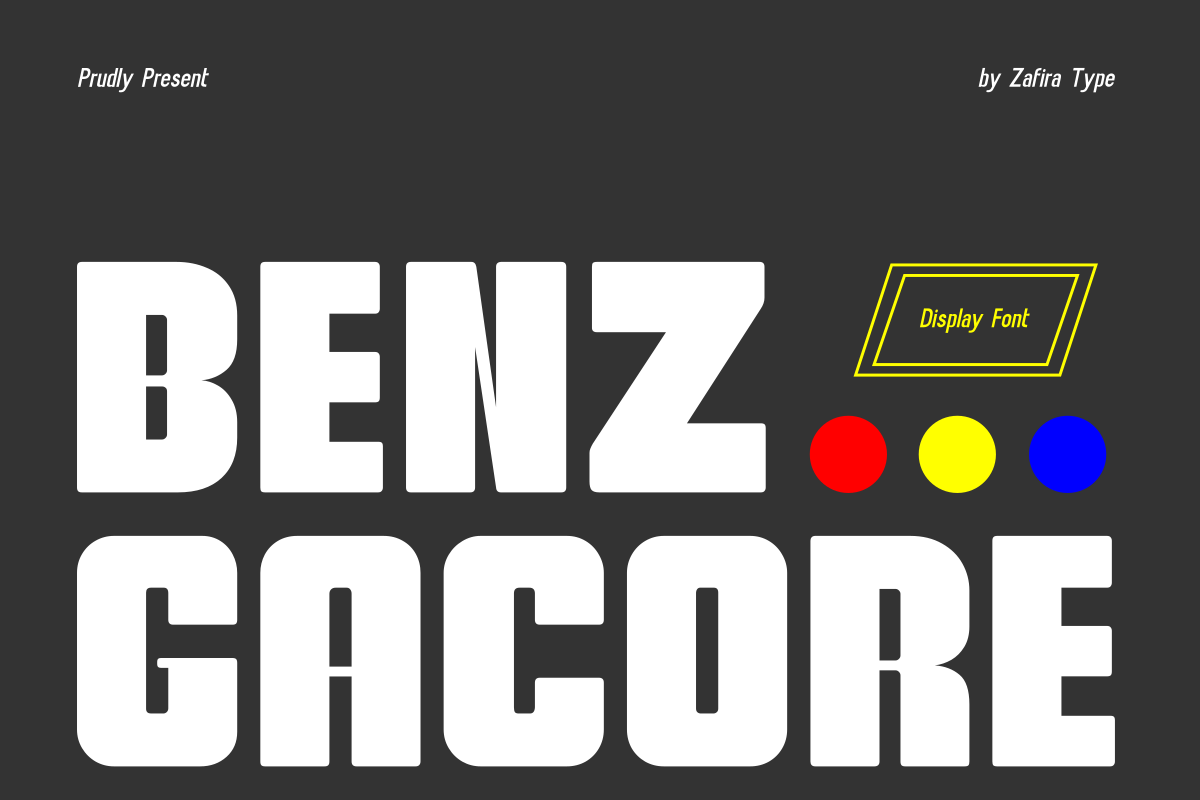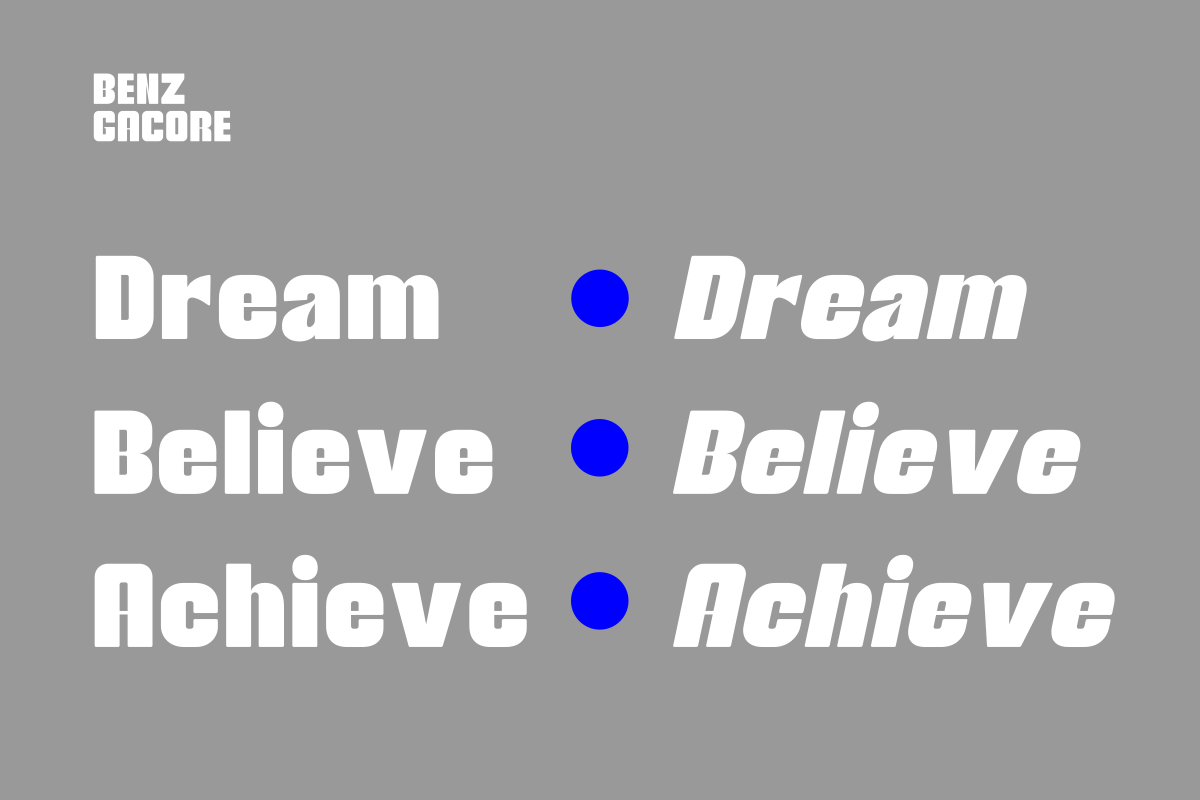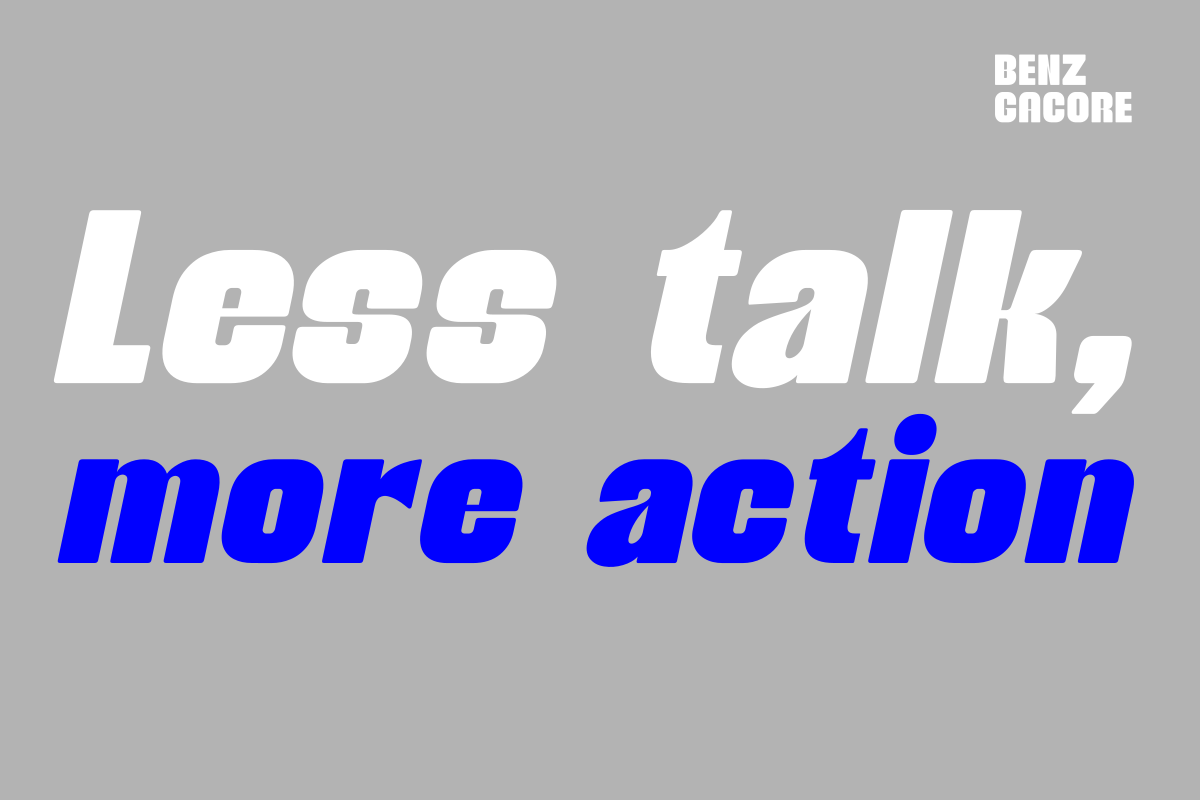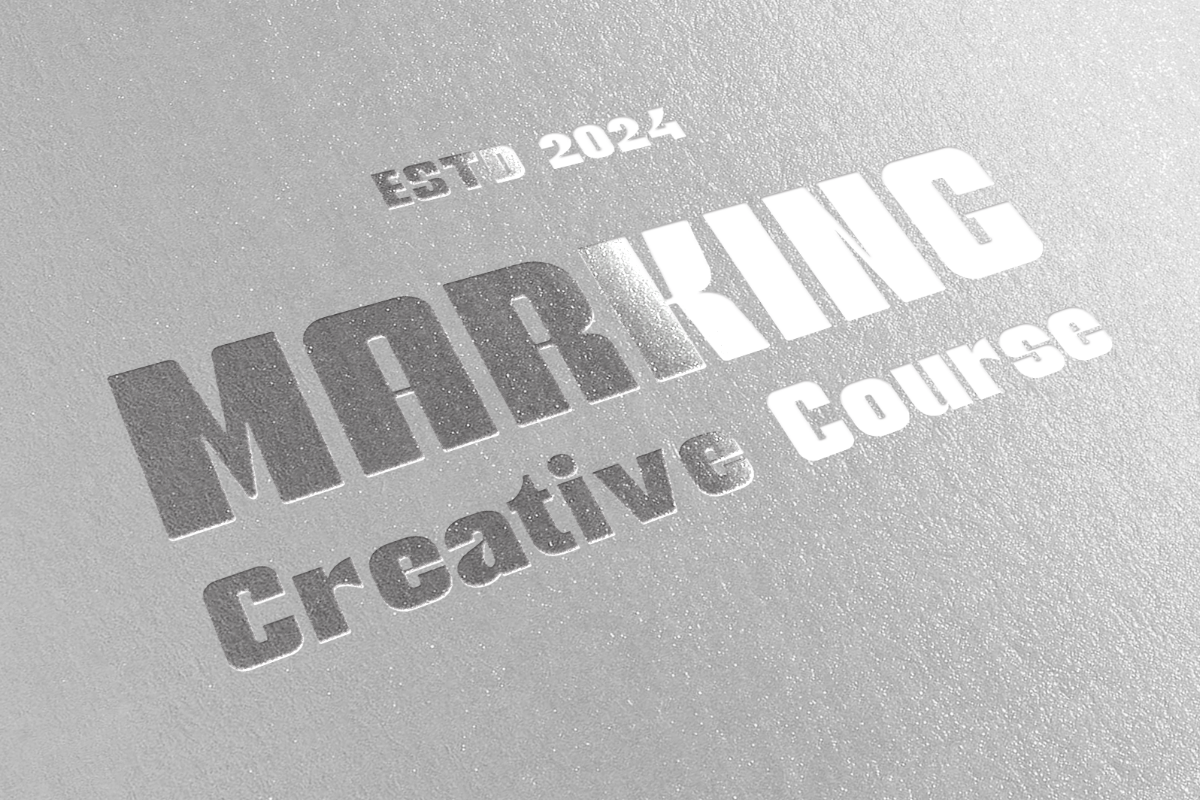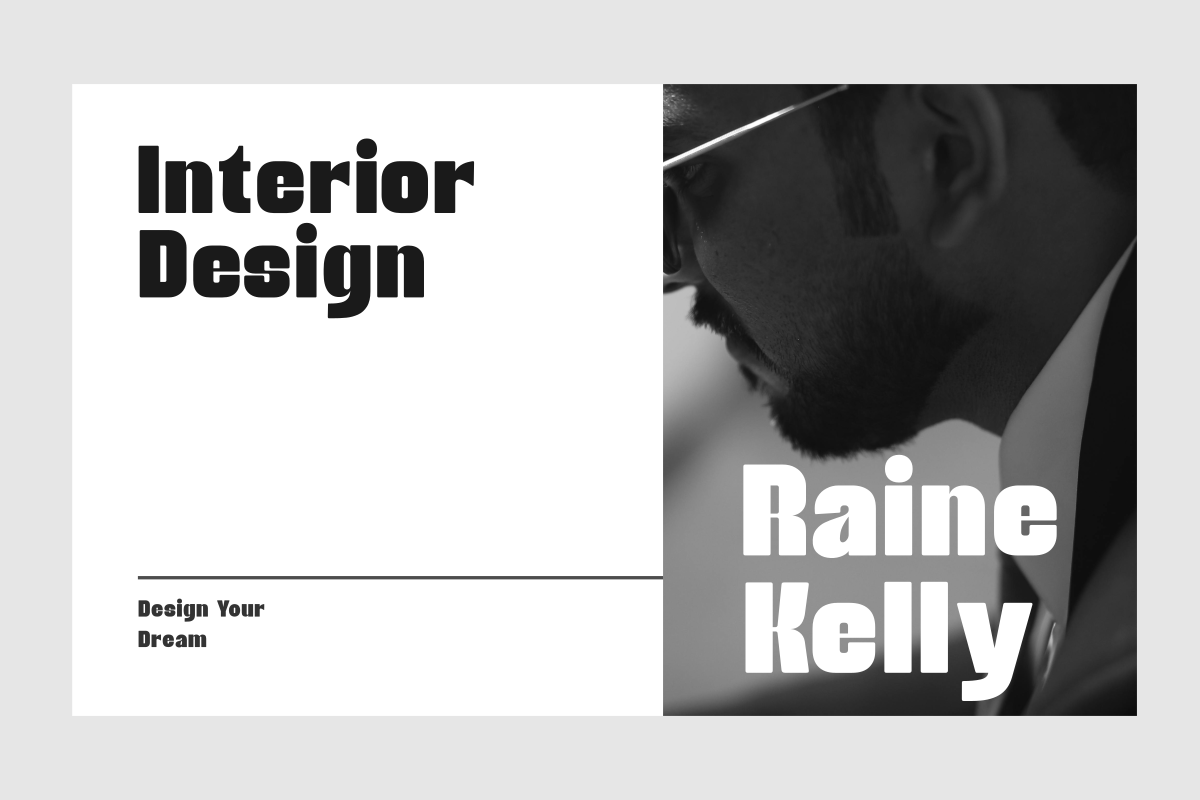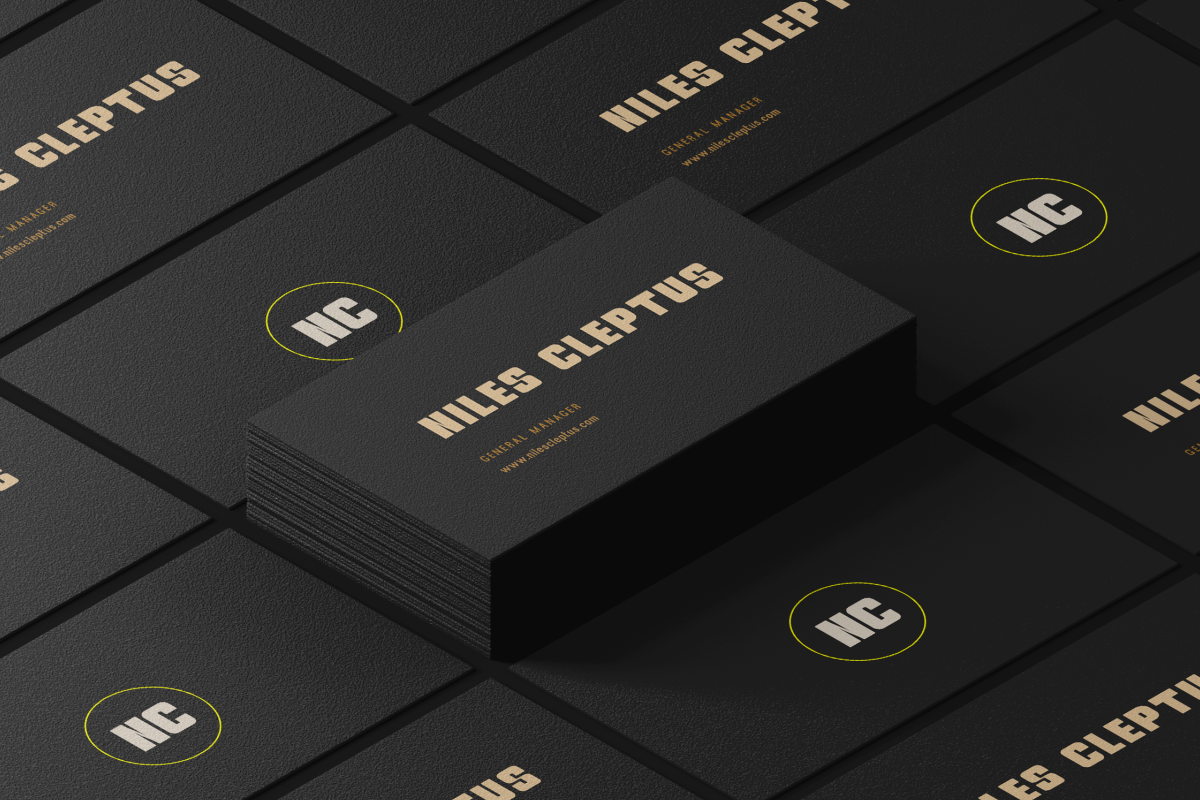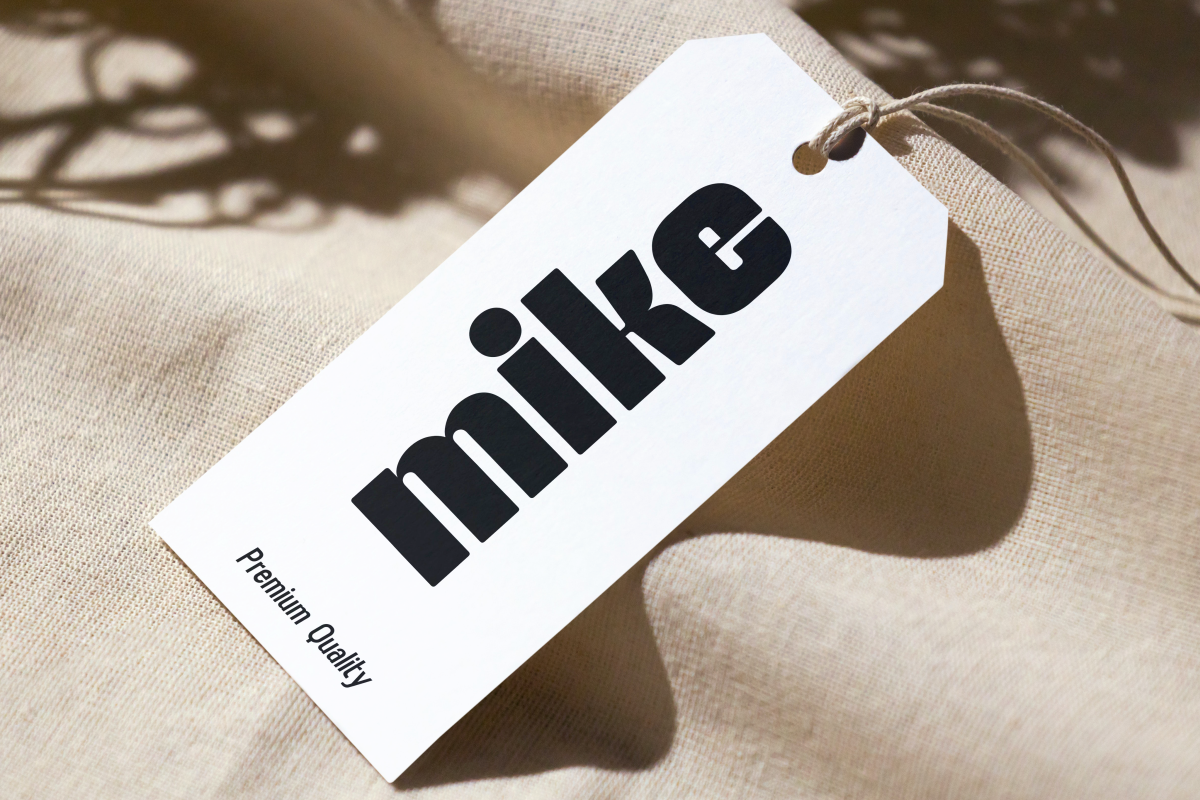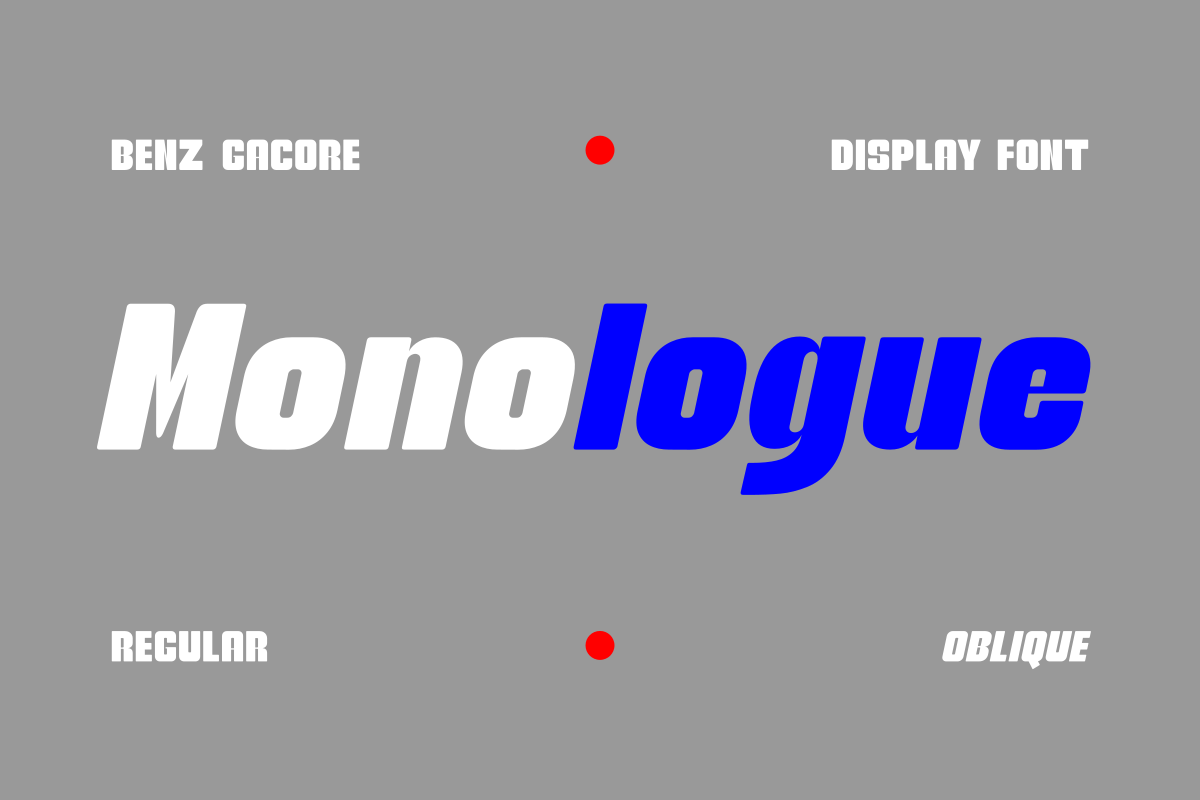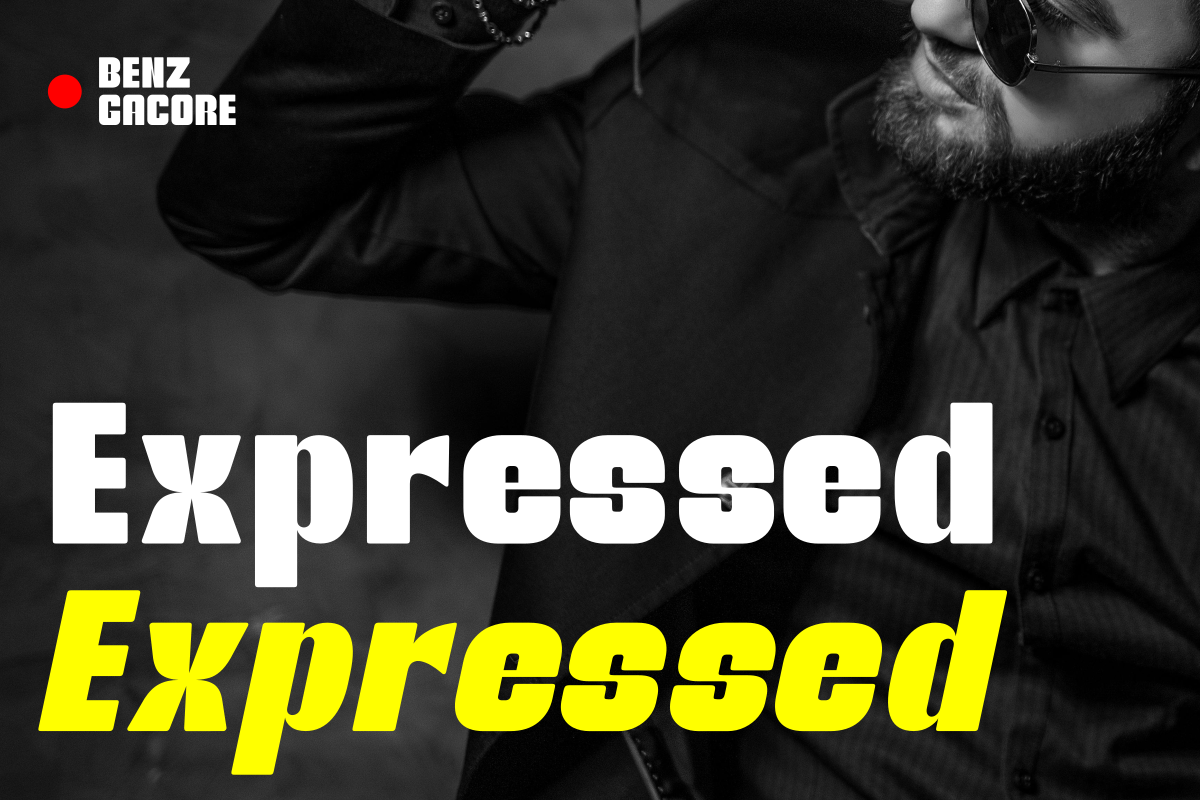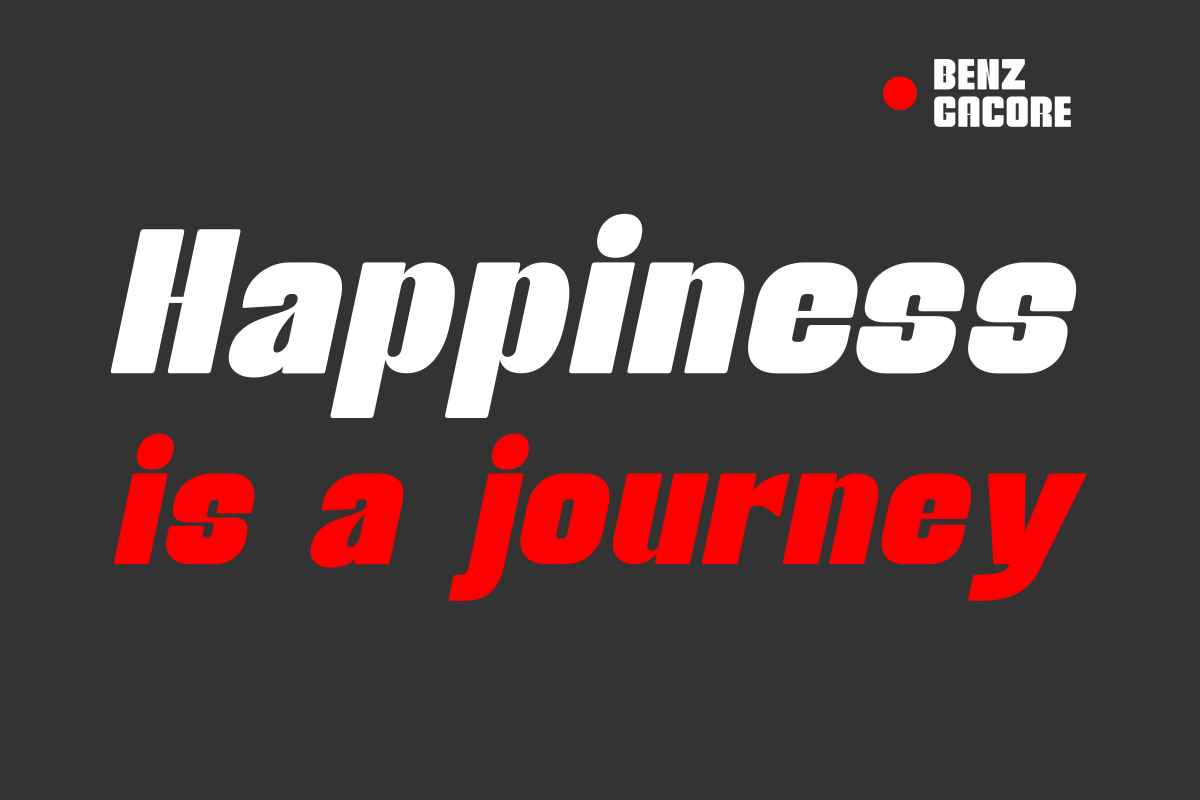
Benz Gacore
Benz Gacore Oblique
Benz Gacore is a bold sans-serif display font designed with a modern and strong impression, perfect for various design needs that require a bold and distinctive look. With proportional letterforms, this font conveys a professional, contemporary, and easy-to-read feel. Known for its clean geometric shapes and precision, Benz Gacore is an ideal choice for titles, logos, headlines, and other visual designs that aim to capture attention. Benz Gacore comes in two variants: Regular, offering boldness with a clean and clear style, and Oblique, which adds a dynamic touch with a slight slant to convey movement and energy.